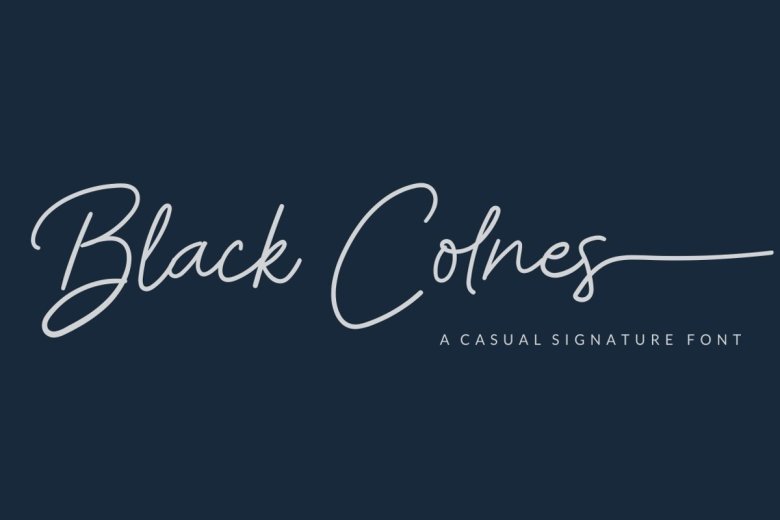
Black Colnes Casual Signature Font
Black Colnes – Casual Signature Font is a handwritten script font with a simple, elegant, stylish and casual style, this font is great for your next creative projects such as watermark on photography, signature or signature logo design, quotes, album cover, business card, and many other design project.